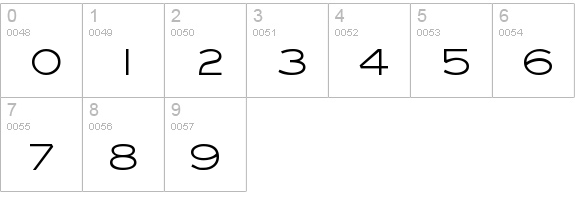
Eye glass Normal Font Details
Eye glass Normal is the standard, neutral variant in the Eye typeface family \xE2\x80\x94 well suited to general body text, paragraphs, and standard typographic work.
Eye glass Normal is a modern and stylish font that is perfect for a wide range of design projects. With its clean lines and elegant curves, this font is both professional and eye-catching. Whether you are creating a logo, designing a website, or working on a print project, Eye glass Normal is sure to make your text stand out. The best part? Eye glass Normal is completely free to download at FontsMarket.com. Simply visit the website and start using this versatile font in your projects today. Don't miss out on this fantastic opportunity to enhance your designs with Eye glass Normal!